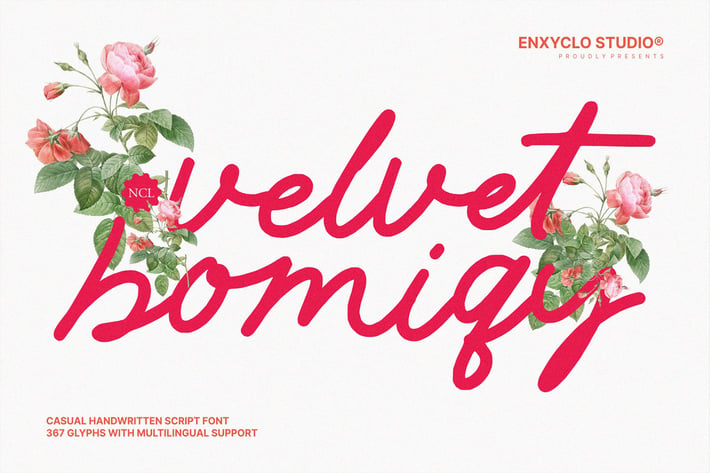
NCL Velvet Bomiqy - Casual Handwritten Script Font
NCL Velvet Bomiqy is a casual handwritten script font. Masterfully designed to become a true favorite, this font has the potential to bring each of your creative ideas to the highest level! It was purposely crafted to be used in large point sizes, although it doesn’t lose its magic in small point sizes. It is perfect for headline, digital ads, magazines, website, poster, branding, and logos. No matter the topic, this font will be an incredible asset to your fonts’ library, as it has the potential to elevate any creation. With this beautiful font, absolutely you can make your project stand out from the rest.
367 Unique Glyphs
20 Ligature
Numeral, Punctuation & Symbols